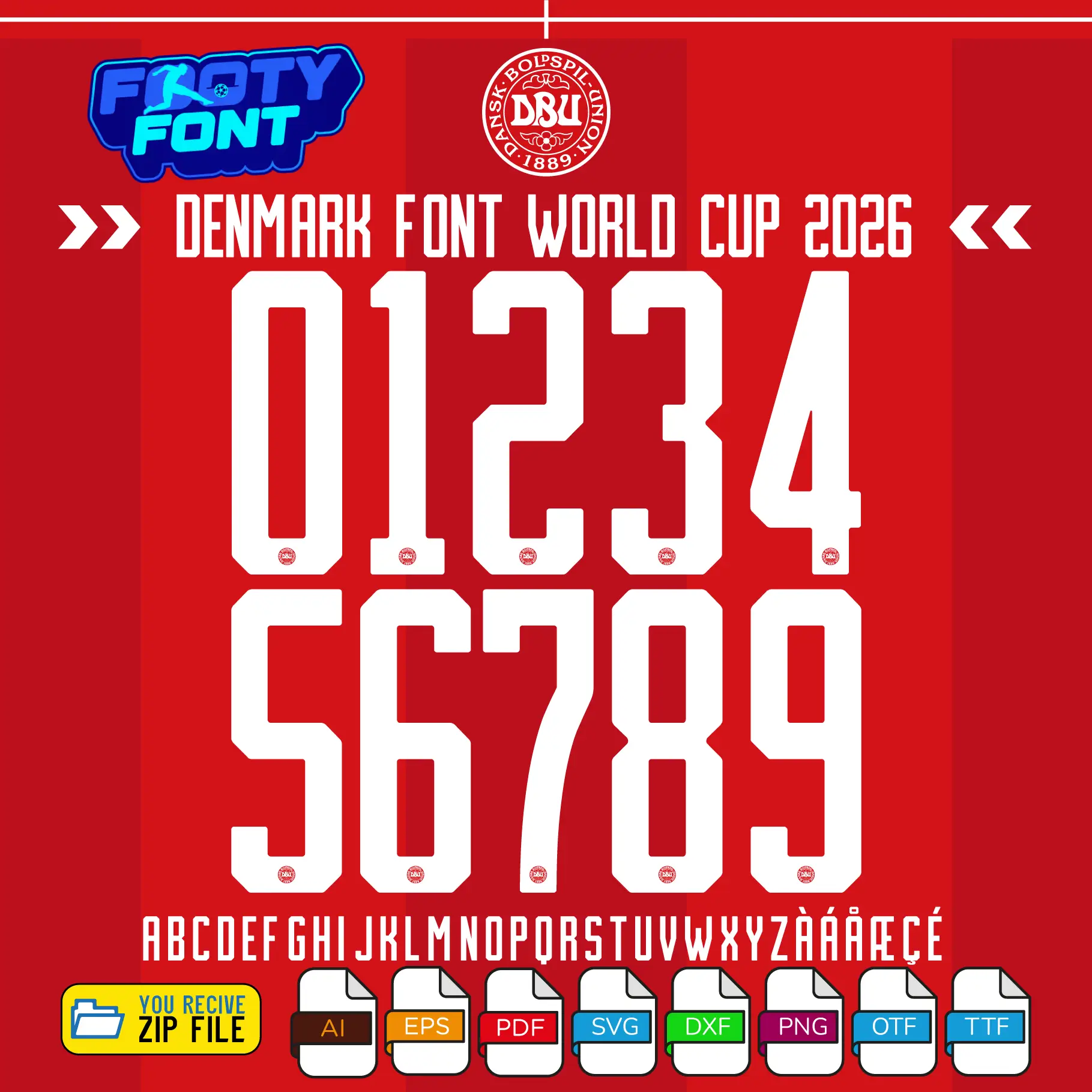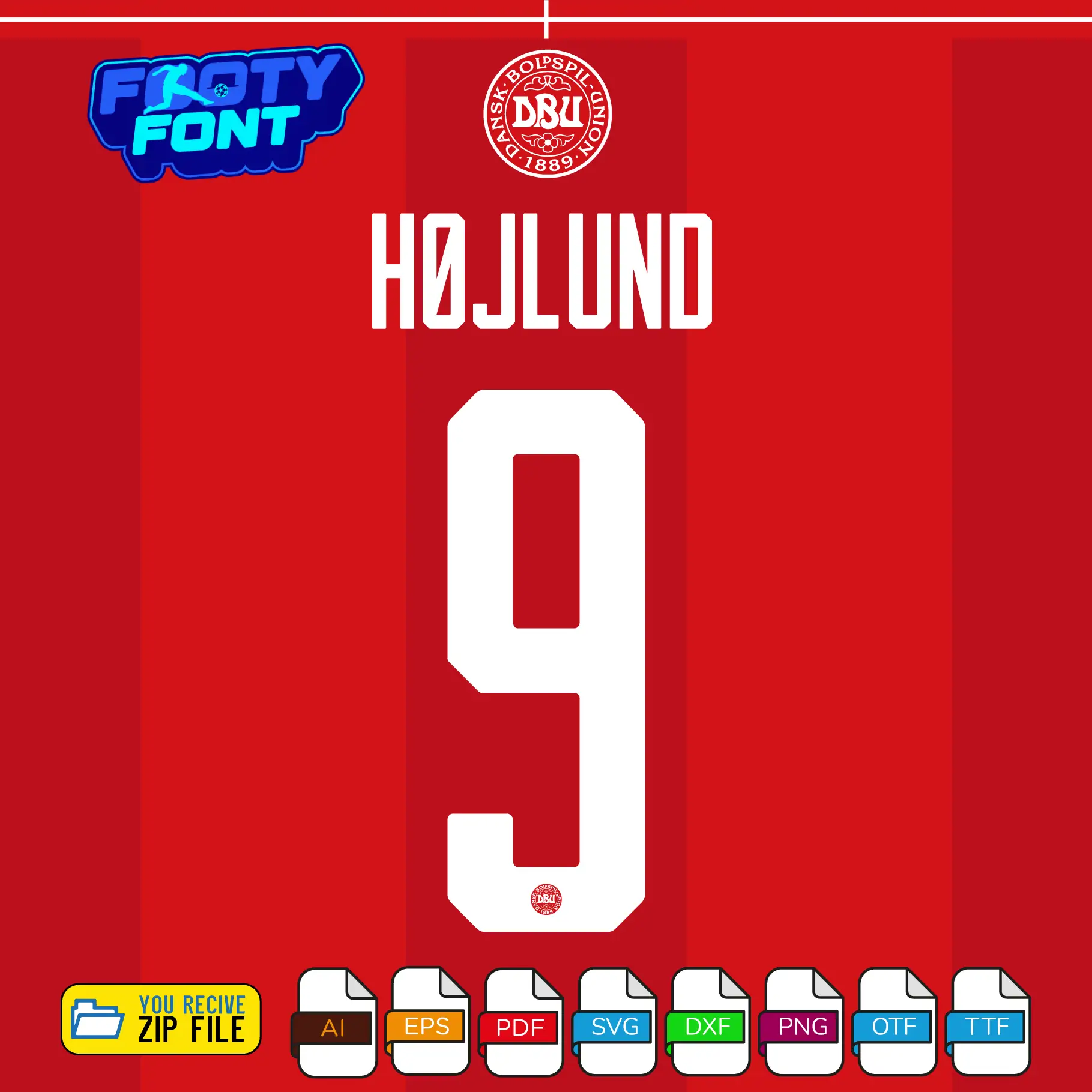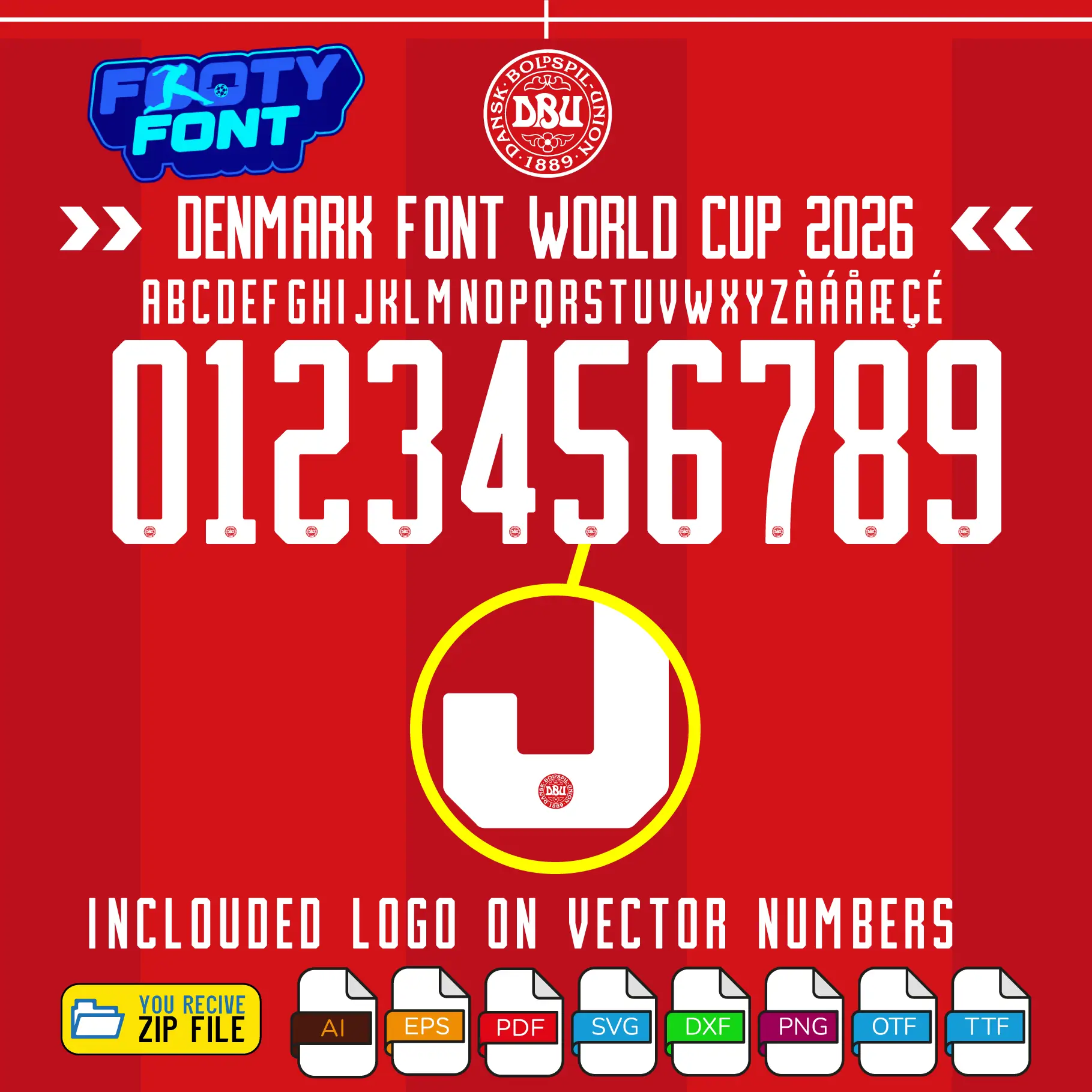
Denmark 2026 Football Font
Bring the spirit of the Danish Dynamite to your designs with this font, inspired by the Denmark 2026 World Cup home kit. This high-quality typeface is designed to replicate the clean, bold lettering worn by the Danish National Team, featuring the classic white text designed perfectly for their iconic red home jerseys.
This font captures the powerful style worn by Denmark’s biggest stars like star striker Rasmus Højlund, midfield maestro Christian Eriksen, and Pierre-Emile Højbjerg. It is an absolute must-have for fans creating custom jersey designs, digital art, or matchday posters that celebrate their support for Denmark on the biggest stage in football.
Use this font to bring the Denmark national team style into your designs-whether for custom jersey graphics, fan merchandise, posters, or social media content.
Denmark Font World cup 2026 home kit showing the complete alphabet and white numbers.